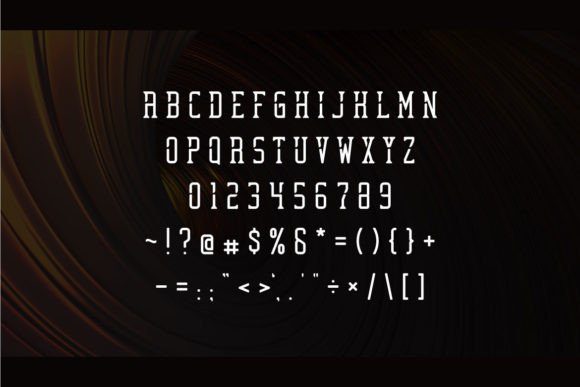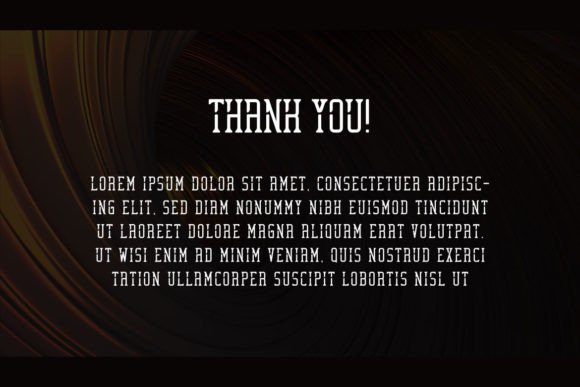
Introducing Ganesa Font: Elevate Your Designs with a Modern, Clean, and Eye-Catching Display Font
In the world of design, typography plays a crucial role in capturing the audience’s attention and conveying the message effectively. A well-chosen font can make all the difference in creating visually stunning designs that leave a lasting impression. If you’re a designer, craftsperson, or simply a creative enthusiast, you’re in luck! We’re excited to introduce Ganesa Font, a modern, clean, and eye-catching display font that’s perfect for a wide range of design projects.
What is Ganesa Font?
Ganesa Font is a carefully crafted display font designed to make your designs stand out. Its modern and clean aesthetic makes it an ideal choice for creating posters, cards, book titles, headlines, news, banners, flyers, stationery, and many more. With Ganesa, you can add a touch of sophistication and elegance to your designs, making them perfect for both personal and professional use.
Key Features of Ganesa Font
• Modern and Clean Design: Ganesa Font boasts a sleek and contemporary design that’s perfect for creating modern and stylish designs.
• Eye-Catching: The font’s unique and distinctive style is sure to grab attention and make your designs stand out.
• Versatile: Ganesa Font is suitable for a wide range of design projects, from posters and flyers to book titles and stationery.
• Easy to Read: The font’s clean and simple design ensures that your text is easy to read, even at smaller sizes.
Why Choose Ganesa Font?
With so many fonts available, why choose Ganesa? Here are just a few reasons why Ganesa Font should be your go-to choice for your next design project:
• Unique and Distinctive: Ganesa Font’s modern and clean design sets it apart from other fonts, ensuring your designs will stand out from the crowd.
• Time-Saving: With Ganesa Font, you can create professional-looking designs in no time, saving you time and effort.
• High-Quality: The font is carefully crafted to ensure high-quality and consistency, making it perfect for both personal and professional use.
• Posters and Flyers: Create eye-catching posters and flyers for events, promotions, or announcements.
• Book Titles and Headlines: Use Ganesa Font to create stunning book titles and headlines that grab attention.
• Stationery and Cards: Add a touch of elegance to your stationery and cards with Ganesa Font.
• News and Banners: Use Ganesa Font to create modern and stylish news articles and banners.
Font Name Ganesa Font
Author Mightyfire
In conclusion, Ganesa Font is an excellent addition to any designer’s fonts library. Its modern, clean, and eye-catching design makes it perfect for a wide range of design projects. With Ganesa Font, you can create stunning designs that capture attention and convey your message effectively. So why wait? Add Ganesa Font to your library today and start creating awesome designs!